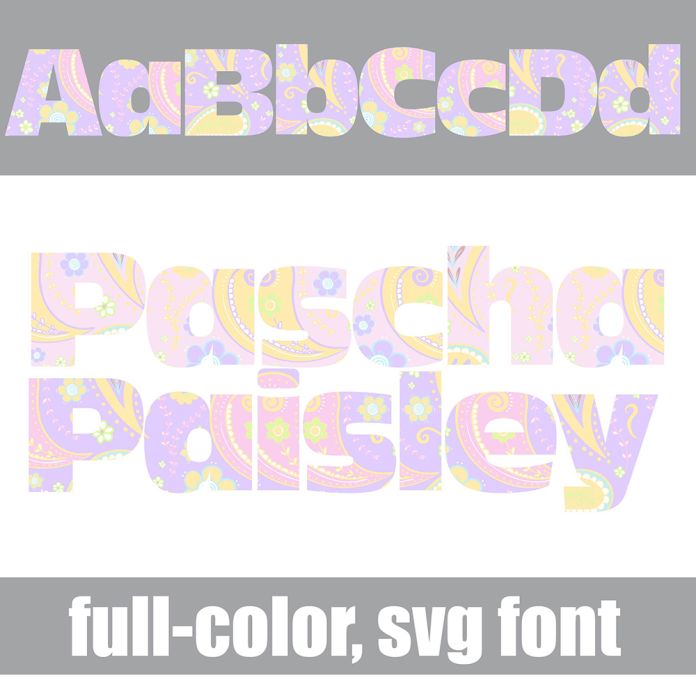
This full-color font features a blocky, sans serif filled with a pastel-colored paisley. There is an alt case with an additional color of each letter. This font works best for titles, displays, posters and more. Please note color fonts will show as black in non compatible programs. This font type is compatible with Silhouette Studio.